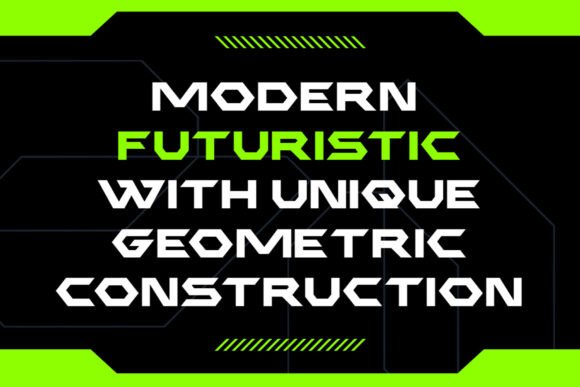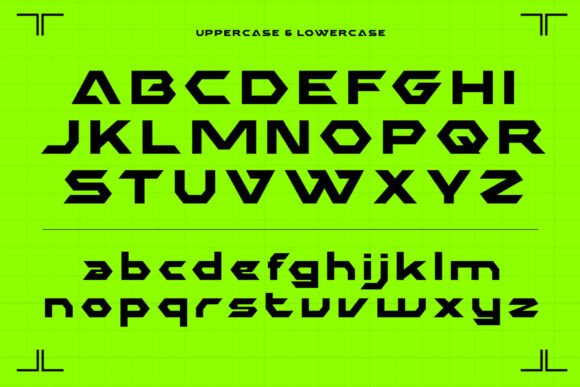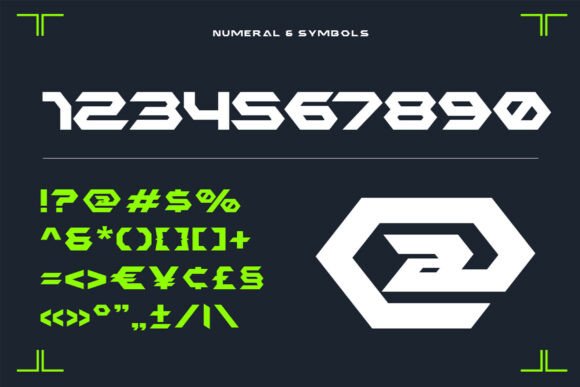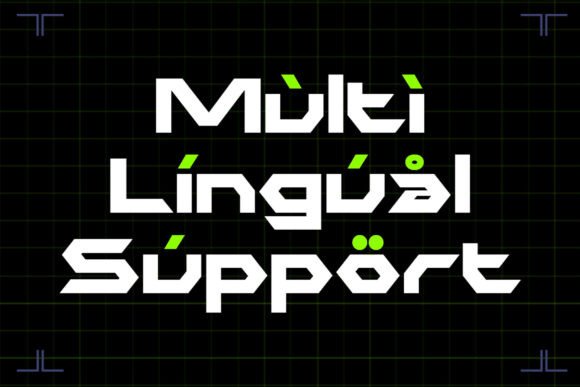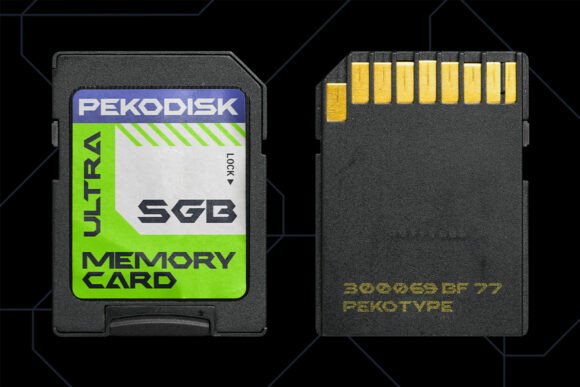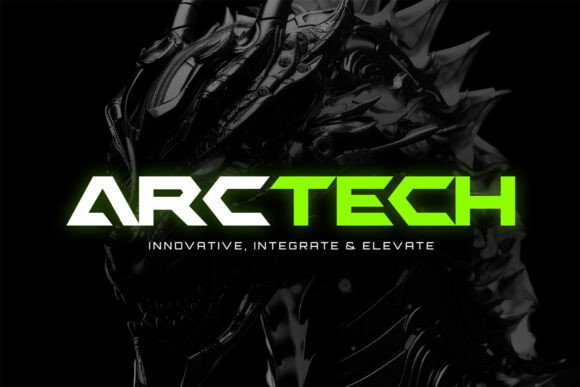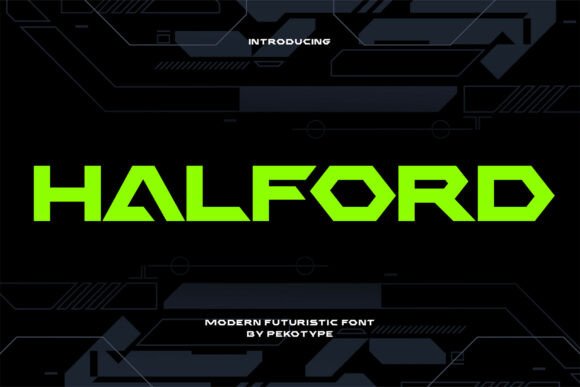
Introducing Halford – The Modern Futuristic Geometric Font
In the ever-evolving world of design, typography plays a crucial role in shaping the visual identity of a brand, product, or project. For those looking to make a bold statement and transport their audience into the future, Halford is the perfect choice. This modern and futuristic geometric font is engineered to deliver a dynamic and innovative look, combining strong shapes with sleek details to create a truly unique visual experience.
Precision-Designed for Bold Visual Impact
Halford is not just another font; it’s a design statement. Crafted with precision and built on clean construction principles, this typeface is tailored for projects that demand a sense of technology, digital progress, and cyber aesthetics. From branding and logos to gaming titles, product packaging, tech startups, and social media graphics, Halford brings a futuristic vibe that’s hard to ignore.
Key Features of Halford Font
- Geometric Design: Halford’s geometric design ensures a clean and modern look, perfect for projects that require a sleek and sophisticated feel.
- Multilingual Support: With support for multiple languages, Halford offers the flexibility to create standout typography for global audiences.
- Uppercase and Lowercase Letters: The font includes both uppercase and lowercase letters, providing designers with a wide range of typographic options.
- Cyber Aesthetic: Halford’s design is deeply rooted in cyber aesthetics, making it ideal for projects related to the metaverse, sci-fi, AI branding, and futuristic campaigns.
Perfect for Futuristic Projects
Whether you’re working on a project that involves virtual reality, artificial intelligence, or any other futuristic theme, Halford is designed to meet your typographic needs. Its modern and geometric design ensures that your visuals look powerful, intelligent, and ahead of their time. For designers and crafters looking to push the boundaries of conventional design, Halford offers a refreshing alternative that’s both versatile and impactful.
Applications of Halford Font
Halford’s versatility makes it suitable for a wide range of applications, including:
- Branding: Create a strong and memorable brand identity with Halford’s unique and futuristic design.
- Logos: Design logos that stand out and convey a sense of innovation and forward-thinking.
- Gaming Titles: Add a touch of futurism to your game titles and make them instantly recognizable.
- Product Packaging: Elevate your product packaging with a modern and sleek typographic style.
- Tech Startups: For tech startups looking to establish a strong visual identity, Halford offers a perfect blend of modernity and professionalism.
- Social Media Graphics: Enhance your social media presence with graphics that feature a clean, modern, and futuristic typographic style.
Why Choose Halford?
In a world where digital presence is increasingly important, having a font that communicates innovation, technology, and forward-thinking is invaluable. Halford not only meets these criteria but also offers:
- Unique Design: A distinctive geometric design that sets it apart from traditional fonts.
- Flexibility: Suitable for a wide range of projects, from digital to print.
- Multilingual Support: Enabling you to reach a global audience.
Halford is more than just a font; it’s a tool for designers and crafters to express their creativity and bring their futuristic visions to life. With its modern geometric design, multilingual support, and versatile applications, Halford is poised to become a go-to choice for projects that demand a bold and futuristic aesthetic. Step into the future of typography with Halford and make your designs stand out in a crowded digital landscape.